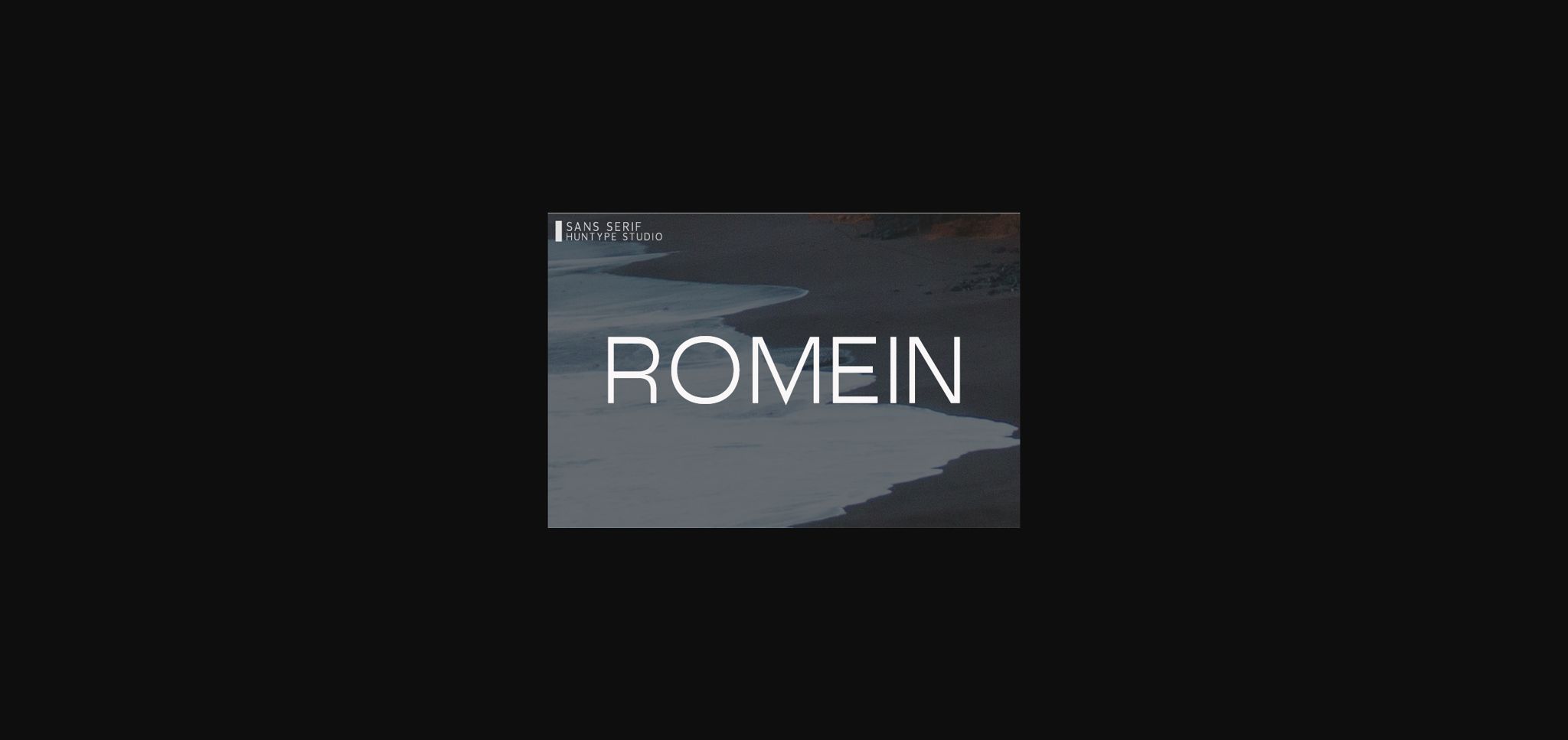
Romein Font
About Romein Font
Romein is a modern sans serif font. It will look particularly adept when used in logos, branding, packaging design, and much more. This masterfully designed typeface is a true must-have.